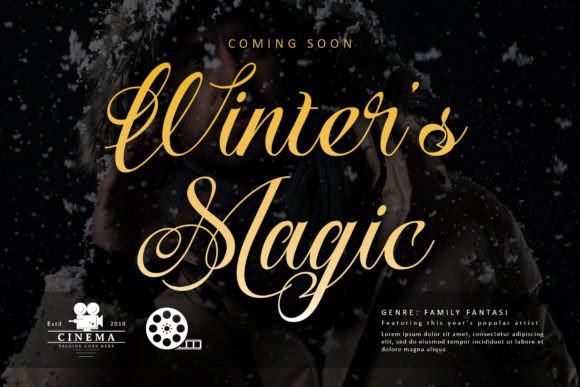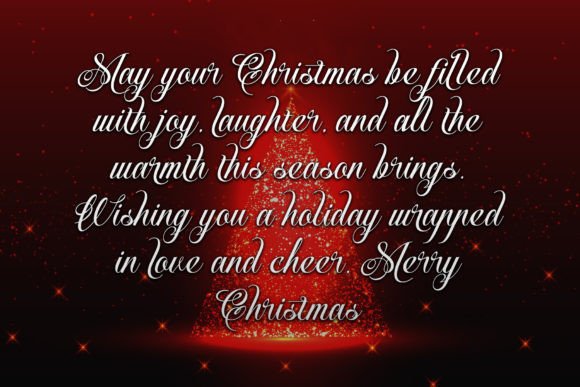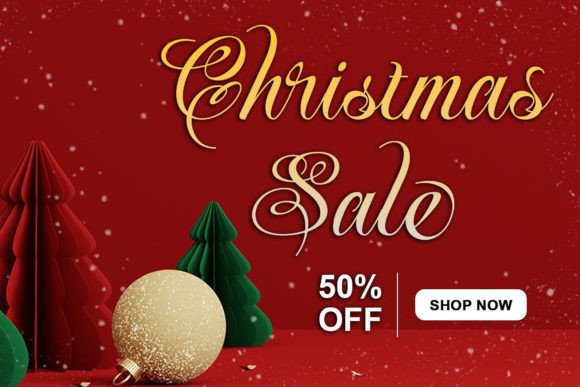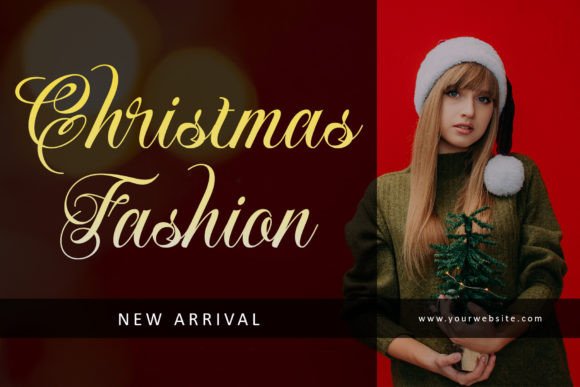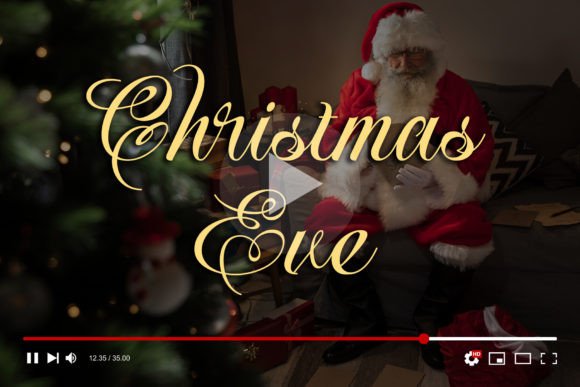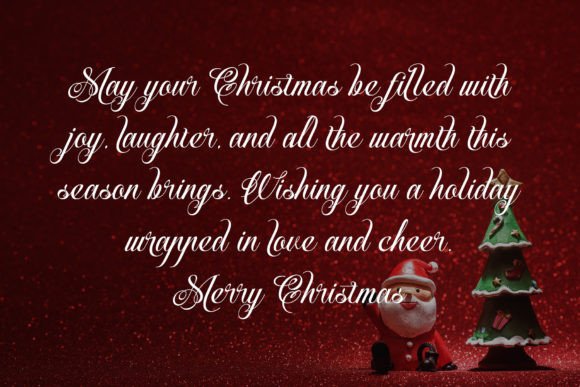
Introduction to Mistletoe Magic Font
As a designer, there’s nothing quite like the thrill of bringing a creative project to life. The moment you see your ideas take shape, the rush of excitement is exhilarating. For many of us, the holiday season is a time for extra creativity and festive flair. And that’s exactly where the Mistletoe Magic Font comes in – a stunning calligraphy font that will elevate your designs to new heights.
With its enchanting style and sophisticated elegance, Mistletoe Magic Font is the perfect design resource for any holiday project. Whether you’re creating cards, gift tags, or social media posts, this font is sure to add a touch of glamour and class. And the best part? It’s PUA encoded, making it easy to access all the exquisite glyphs and swashes. Imagine having a high-quality font at your fingertips, ready to download and use in your next creative project.
- High-quality, intricate design perfect for festive creative projects, holiday cards, and seasonal invitations.
- Unique, hand-drawn style with a touch of magic, evoking the whimsy and wonder of the holiday season.
- Perfect for adding a touch of festive flair to your designs, from Christmas cards to winter wonderland-themed websites.
Honest Review: Mistletoe Magic Font
I recently stumbled upon the Mistletoe Magic Font, and I must say, it’s been a delightful addition to my design arsenal. As a creative professional, I’m always on the lookout for high-quality design resources that can elevate my projects. This font definitely delivers.
What works well: ✨ The Mistletoe Magic Font has a beautiful, whimsical feel that’s perfect for festive projects, like holiday cards, gift tags, or social media graphics. The font is highly customizable, with a range of sizes and styles available for download. The transparent background feature is also a huge plus, making it easy to overlay the font onto any image or design.
Overall, I’m impressed with the Mistletoe Magic Font. It’s a high-quality design resource that’s perfect for creative projects. While it may have some limitations, it’s a great option for personal or small-scale commercial use.
- Whimsical, festive feel ideal for holiday projects
- Customizable with range of sizes and styles available
Use Mistletoe Magic Font to add a touch of magic to your designs. Experiment with different font sizes and colors to create a unique look. You can also use it to create a consistent brand identity across all your designs.
Mistletoe Magic Font is perfect for use in holiday-themed designs, such as Christmas cards, gift tags, and social media graphics. It’s also great for use in branding and marketing materials, such as logos and brochures.